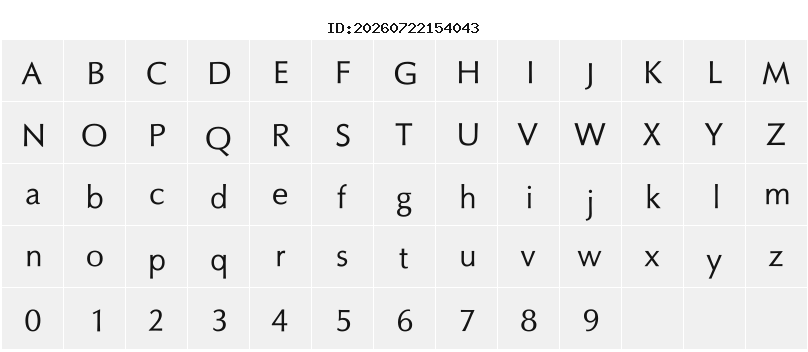
汉仪劲楷简 Preview
• Font Name: 汉仪劲楷简
• Font ID: Hanyi HYJinKaiJ Regular v5.00
• Full Font Name: 汉仪劲楷简 Regular
• Version: Version 5.00
• PostScript Name: HYJinKaiJ
• Character Count: 7911
About 汉仪劲楷简.ttf
汉仪劲楷简.ttf is a modern, elegant sans-serif font designed for ultimate readability and visual harmony. Perfect for branding, headlines, web design, and print materials.